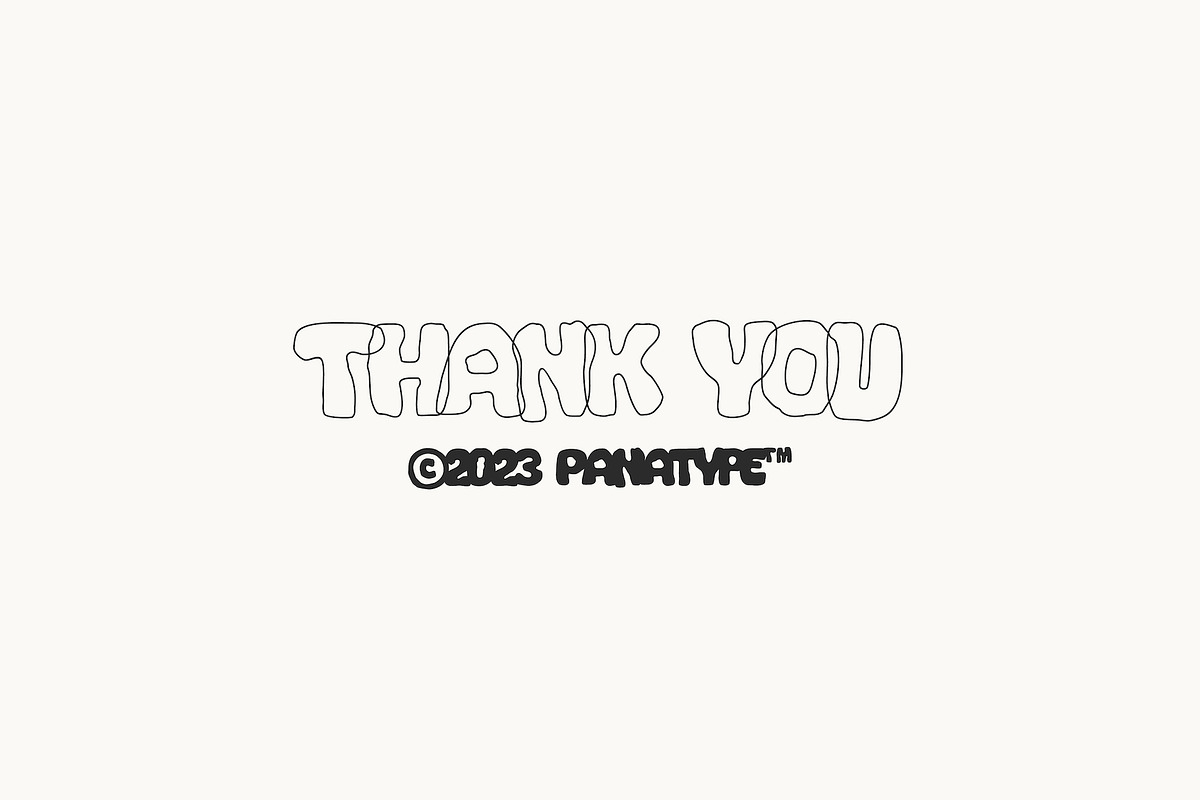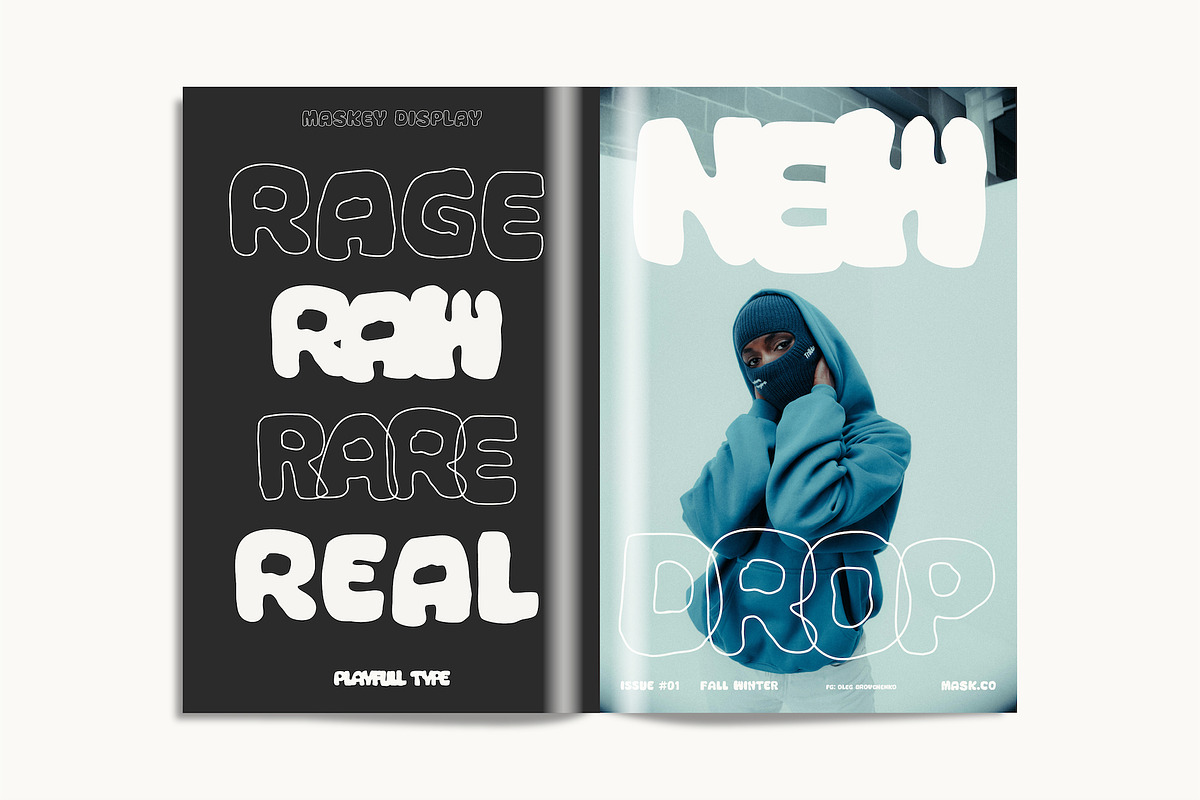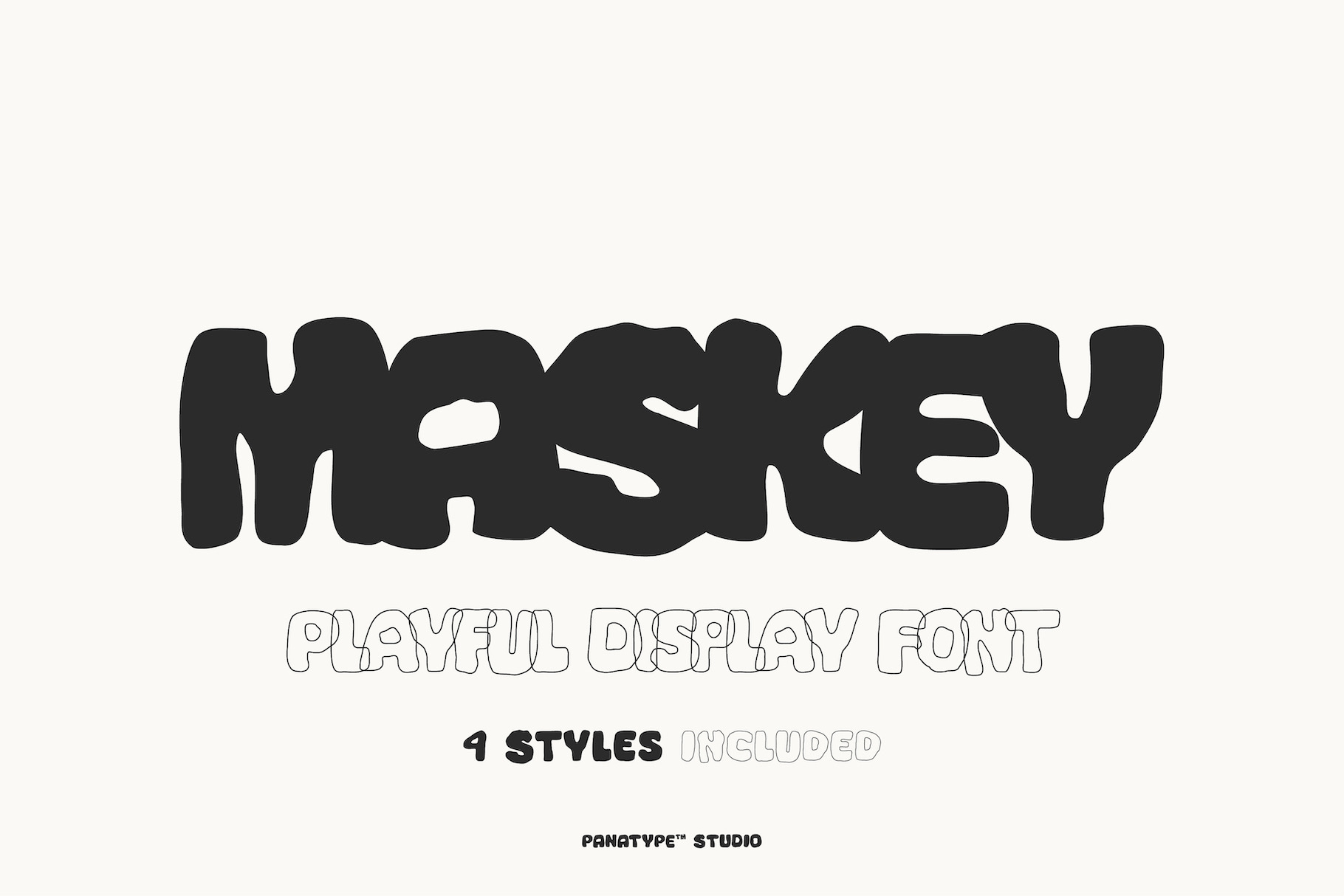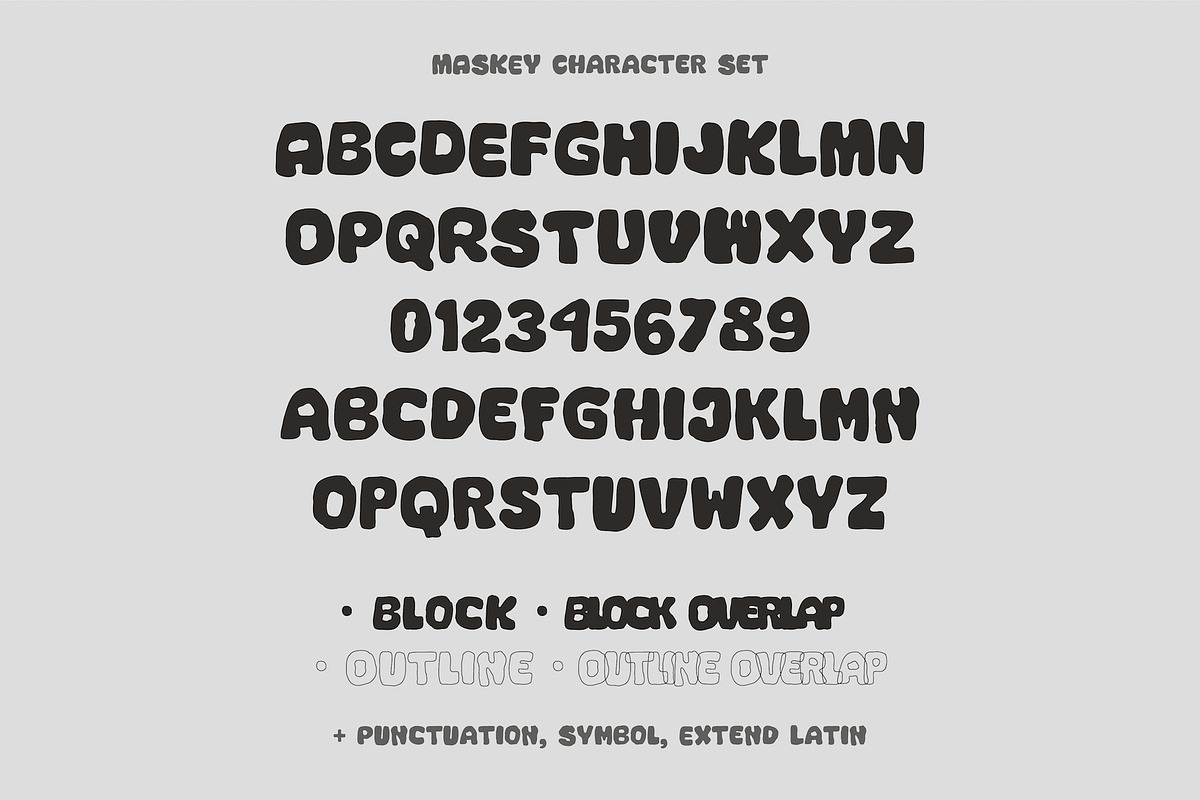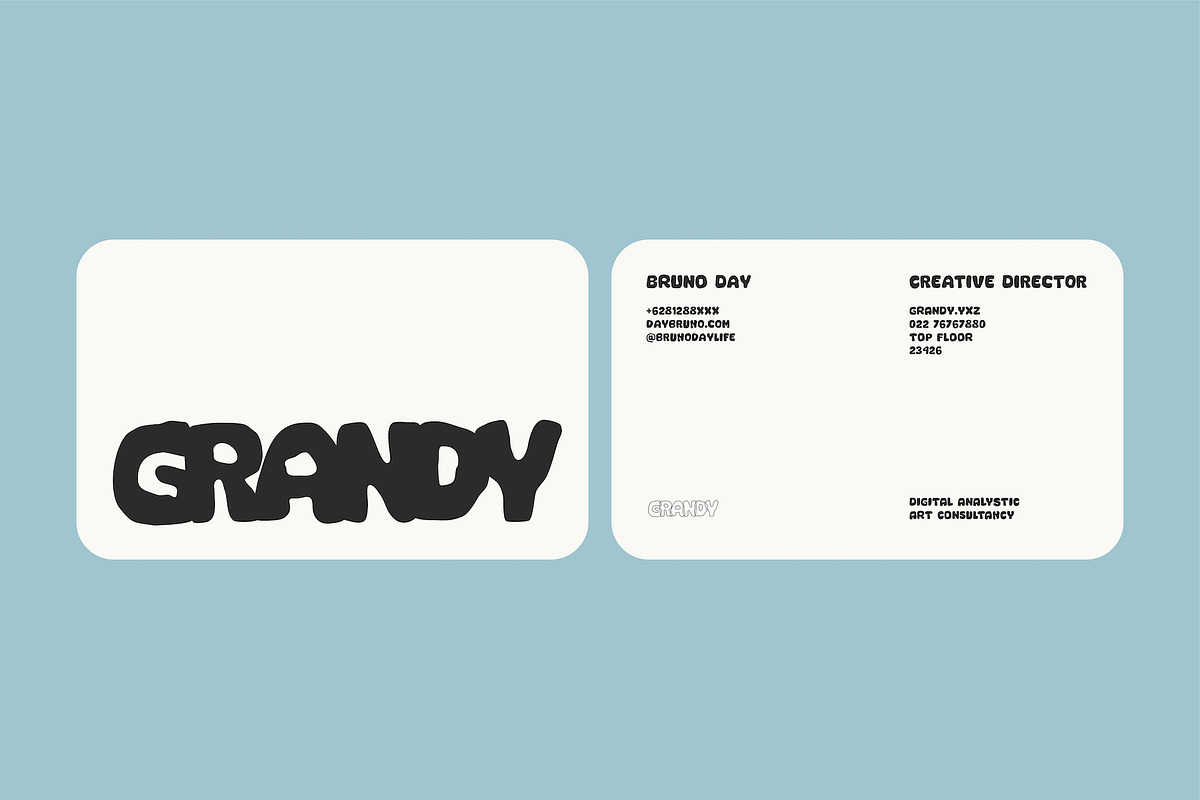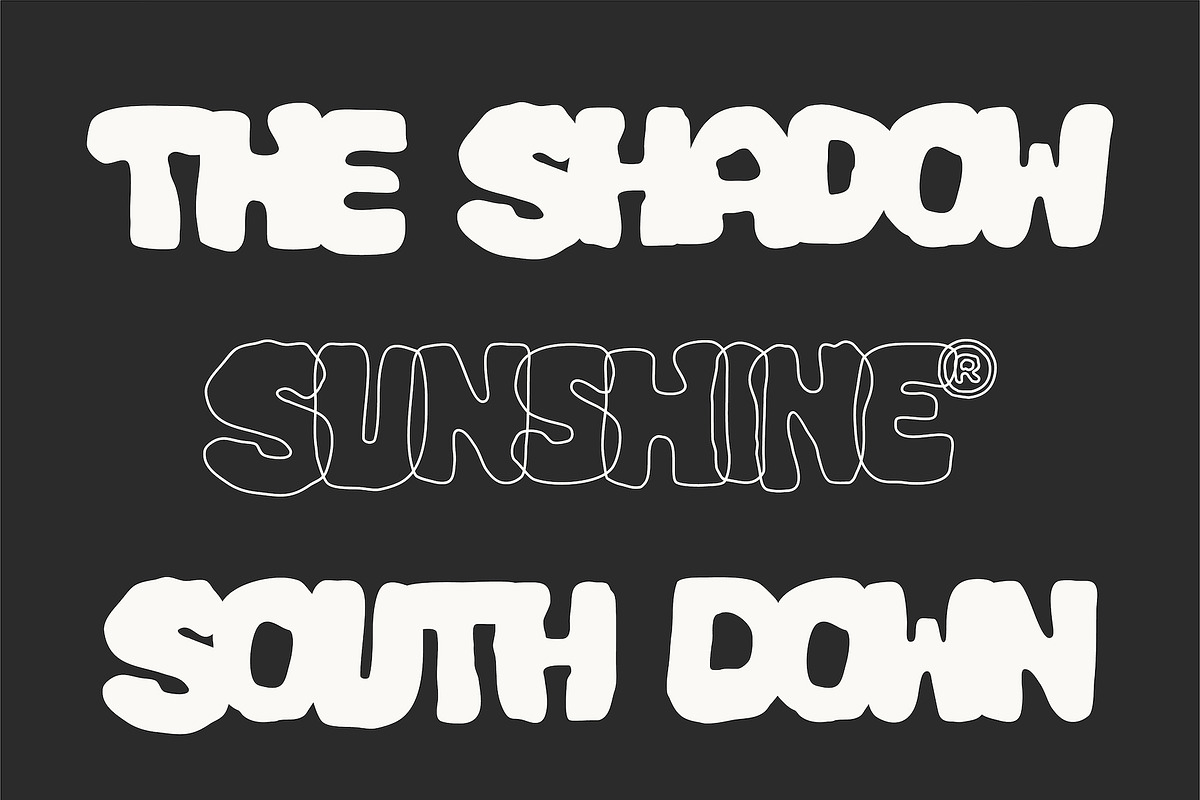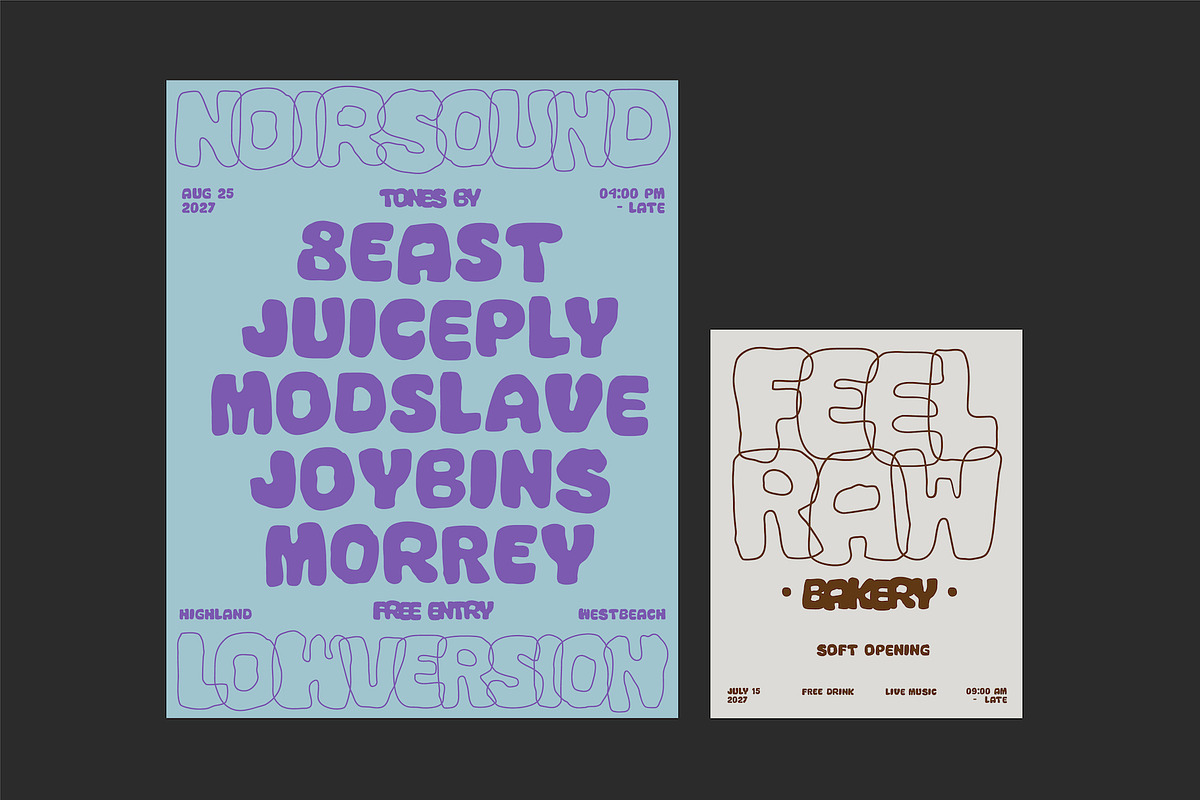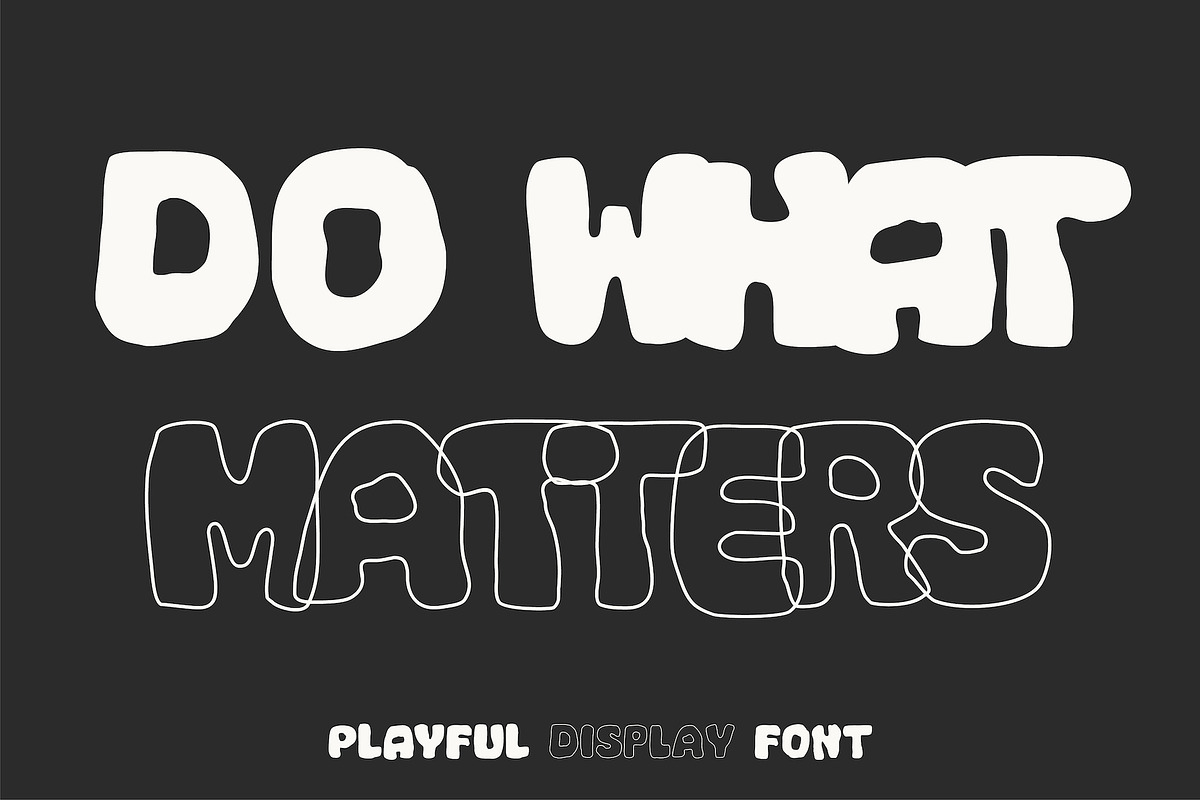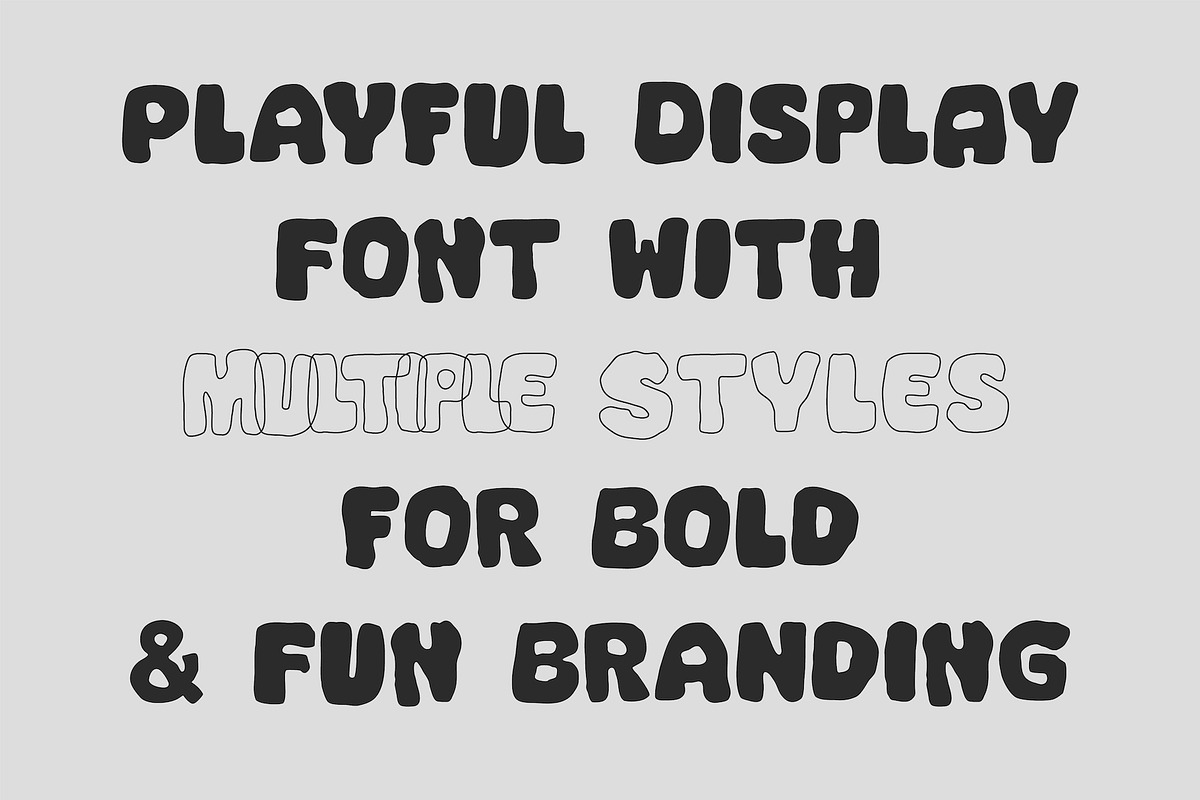
Maskey – Playful Display Font
Maskey V.2 is a playful display font featuring multiple styles, including block, block overlap, and outline variations. Perfect for bold branding, packaging, posters, stickers, and creative projects that need a fun and friendly personality.
Designed with rounded shapes and expressive character, Maskey works beautifully for kids’ brands, lifestyle packaging, event posters, and joyful logo designs. Easy to read, flexible to use, and full of personality.
🔥 Font Features:
- Uppercase & lowercase characters
- Numbers, symbols, and basic punctuation
- Extended Latin support for multilingual design
✨ Perfect For:
- Music: Poster, Flyer Event
- Magazine Headline
- Poster designs, apparel, and sticker graphics
- Café menus, organic product labels, and retro signage
- Social media content with personality